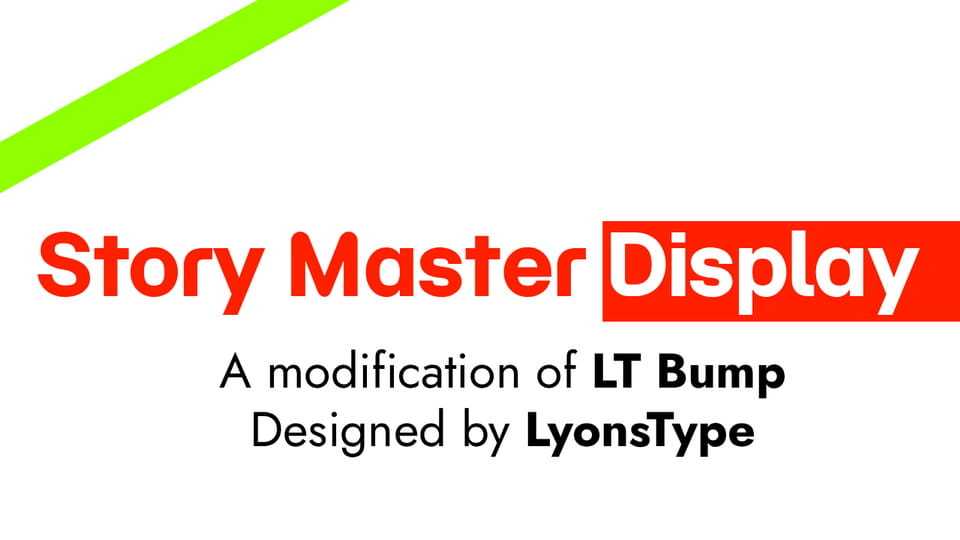
Download Story Master Display font, a bold, contemporary display typeface built on a geometric sans-serif foundation, designed to deliver clarity, structure, and strong visual impact.
Designer: Story Master